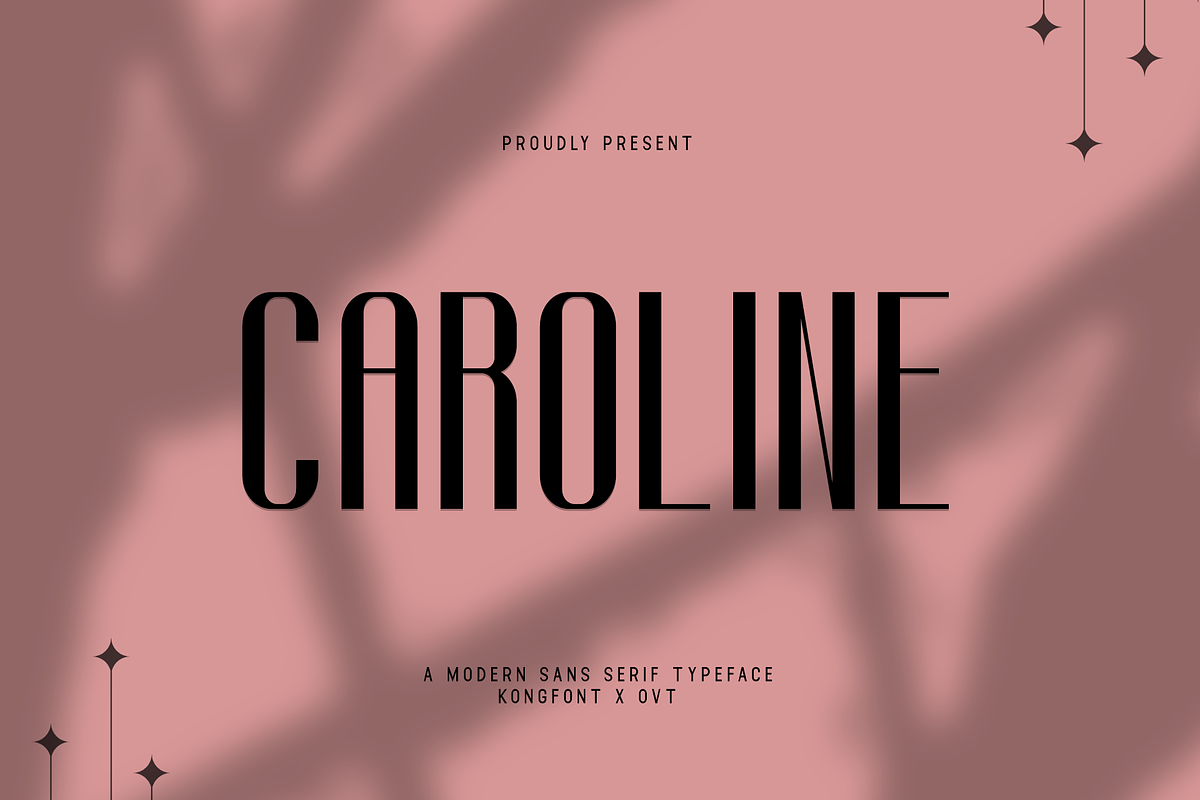
Caroline Modern Sans Serif Typeface Free Download is a clean, elegant, and highly versatile font designed for contemporary design needs. With its sleek lines, minimalist structure, and professional aesthetic, Caroline is perfect for branding, editorial layouts, logos, business cards, product packaging, and web design.
This typeface combines simplicity with sophistication—offering both clarity and style in one beautiful package. Whether you're creating a fashion-forward identity or a polished presentation, Caroline Modern Sans Serif Typeface Free Download ensures your message looks modern and refined.
Its legibility and balanced proportions make it a reliable choice for both display and body text, across print and digital platforms.